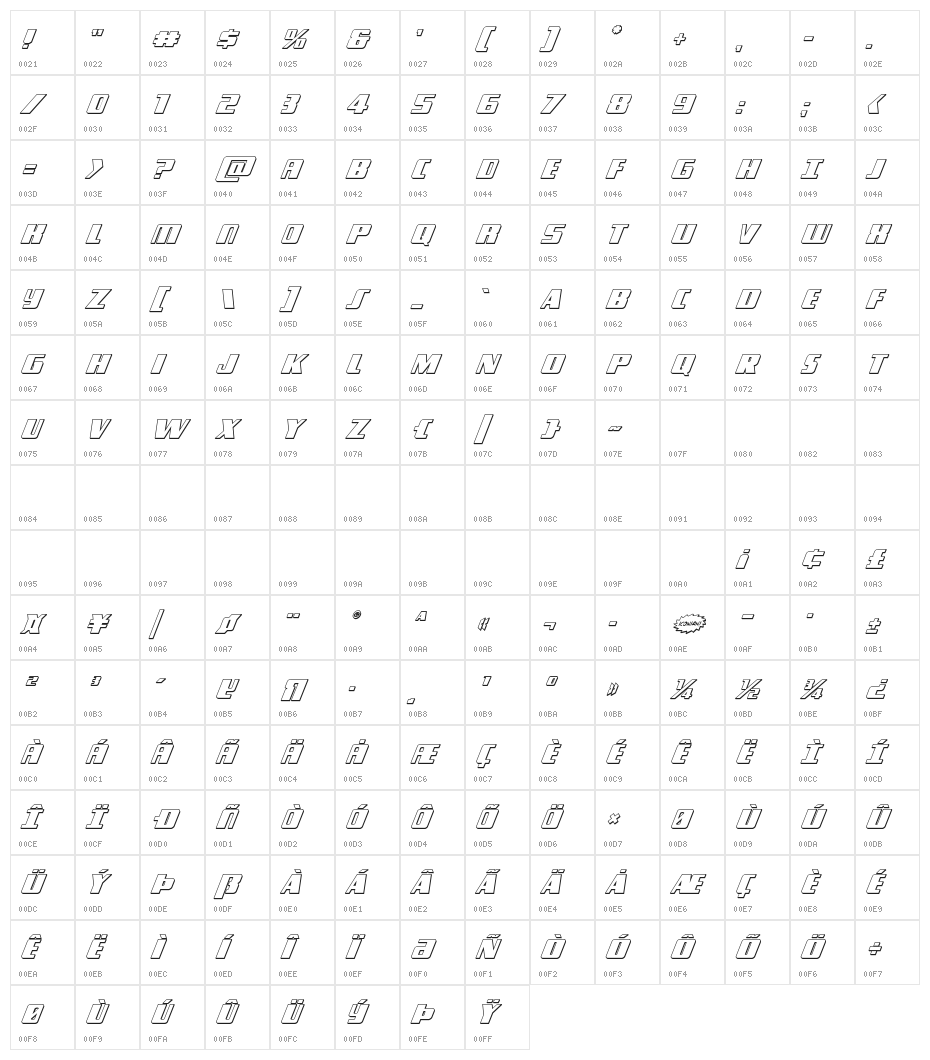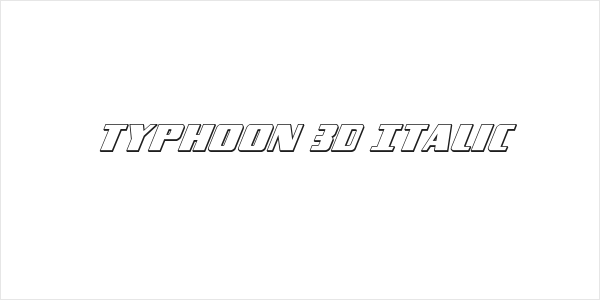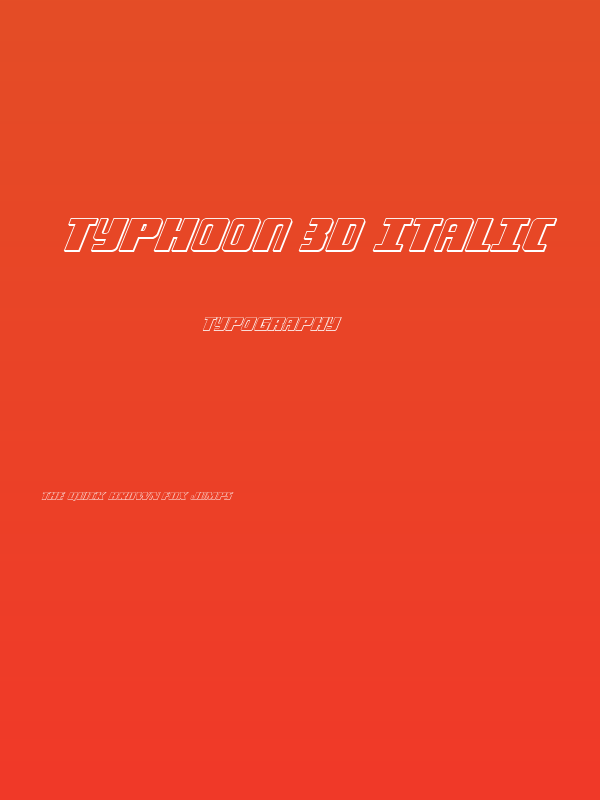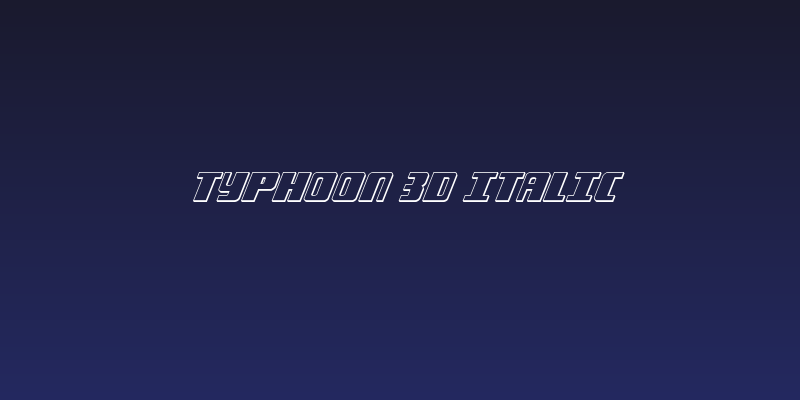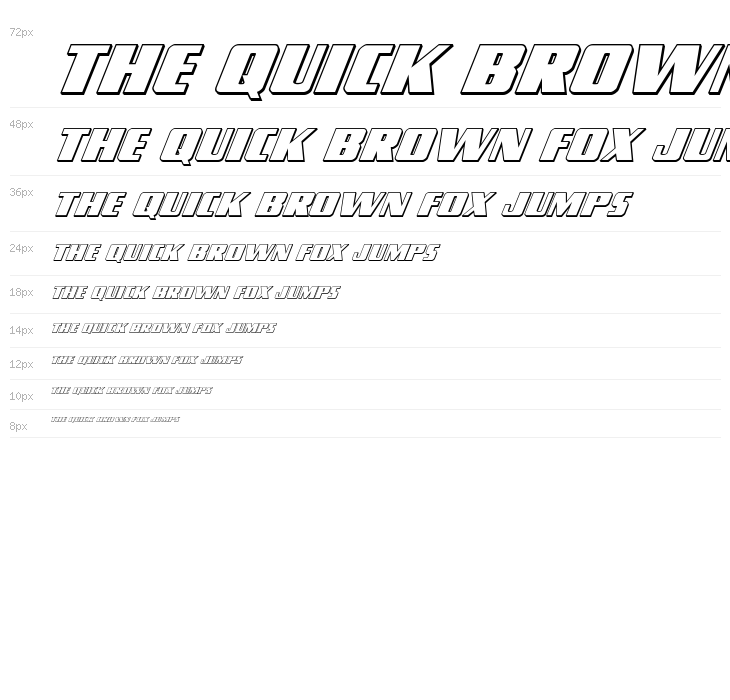
Typhoon 3D Italic Font
Typhoon 3D Italic Description
This font features a bold, three-dimensional design with an italic slant, giving it a dynamic and futuristic appearance. The characters are outlined, creating a sense of depth and movement. The uppercase letters are consistent in height, while the numbers and special characters maintain the same bold, outlined style. The font's geometric structure and sharp angles contribute to its modern and tech-inspired aesthetic, making it suitable for projects that require a strong visual impact.
| Proposed Projects | Ideal for tech branding, video game titles, futuristic posters, and sci-fi themed designs. |